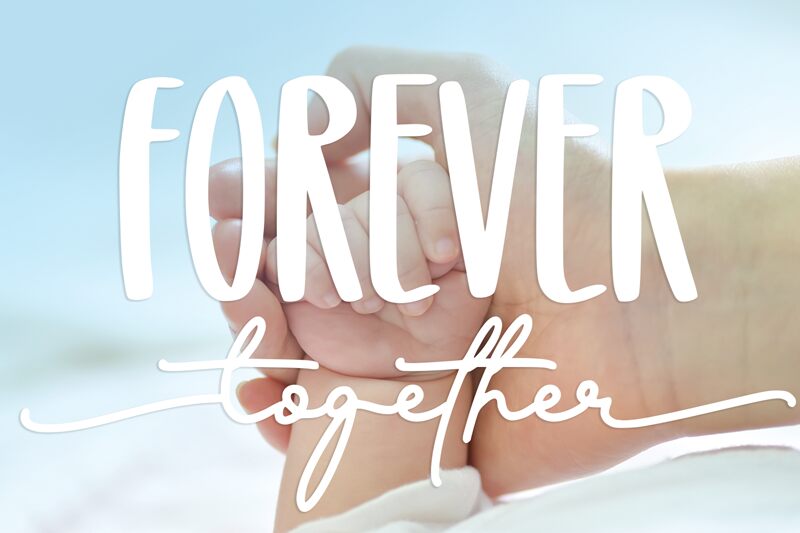
Glitter Winter Script font, crafted by Abo Daniel Studio, exudes a stunning handwritten, signature style that captivates with its elegant flow and personal touch. Its fluid strokes and charming curves create an inviting aesthetic that feels both intimate and sophisticated.
This free font is ideal for projects requiring a personal or artisanal vibe, such as wedding invitations, branding projects, and social media posts. Its distinctive character brings warmth to any design, making it a versatile choice for anyone seeking to add an authentic handwritten flair.
With its unique appeal and free download option, Glitter Winter Script font is perfect for designers aiming to infuse their work with creativity and elegance.
Glitter Winter Script
Abo Daniel Studio
Panggah Laksono @ Abo Daniel Studio